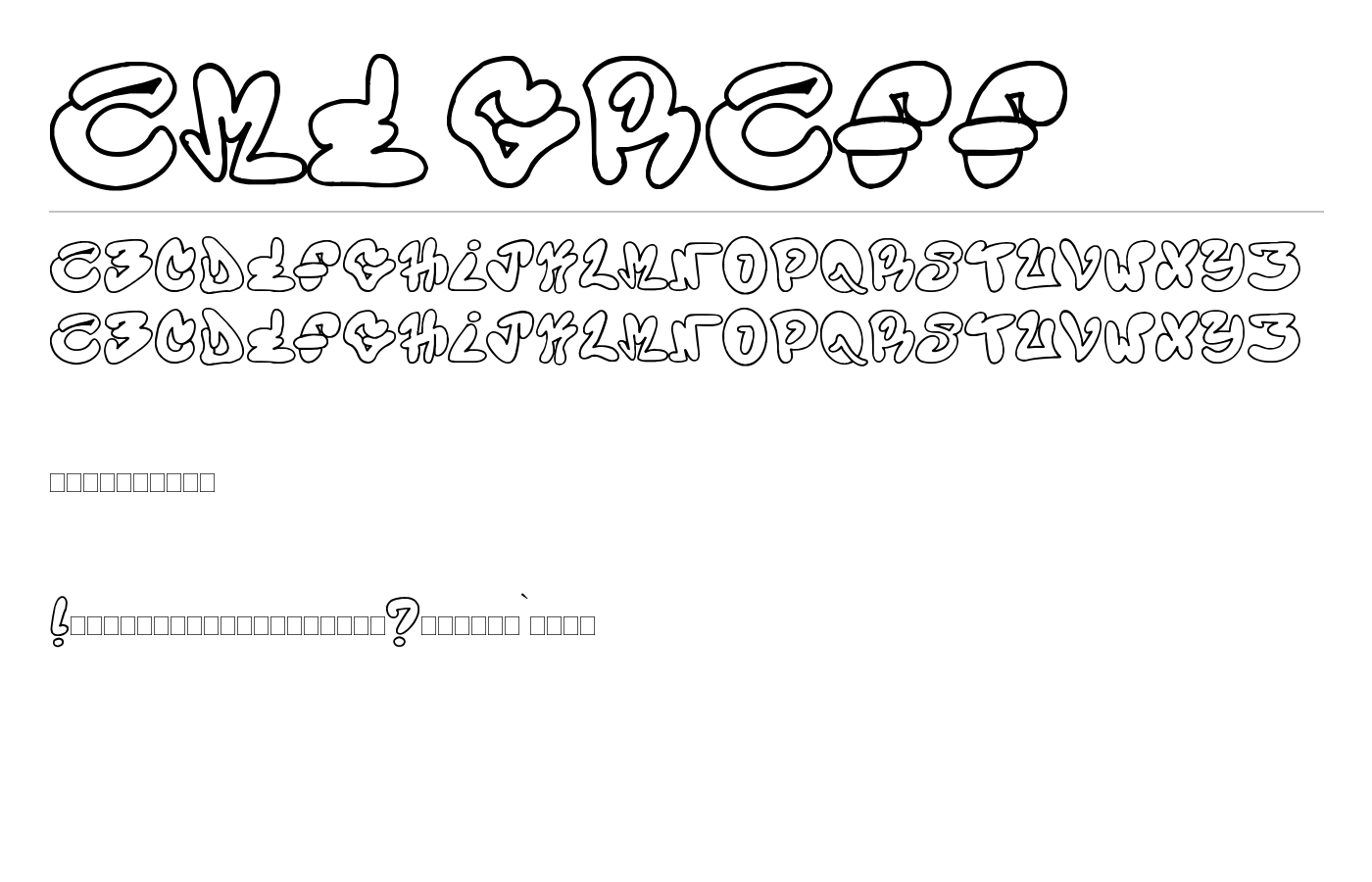
Ame Graff is a playful and bold display font characterized by its thick, rounded, graffiti-inspired letterforms with a hand-drawn feel. Its quirky shapes and lively contours convey a casual, artistic vibe, making it perfect for creative projects, urban branding, posters, and youth-oriented designs where a fun, expressive attitude is desired.
ame graff Font
About ame graff Font